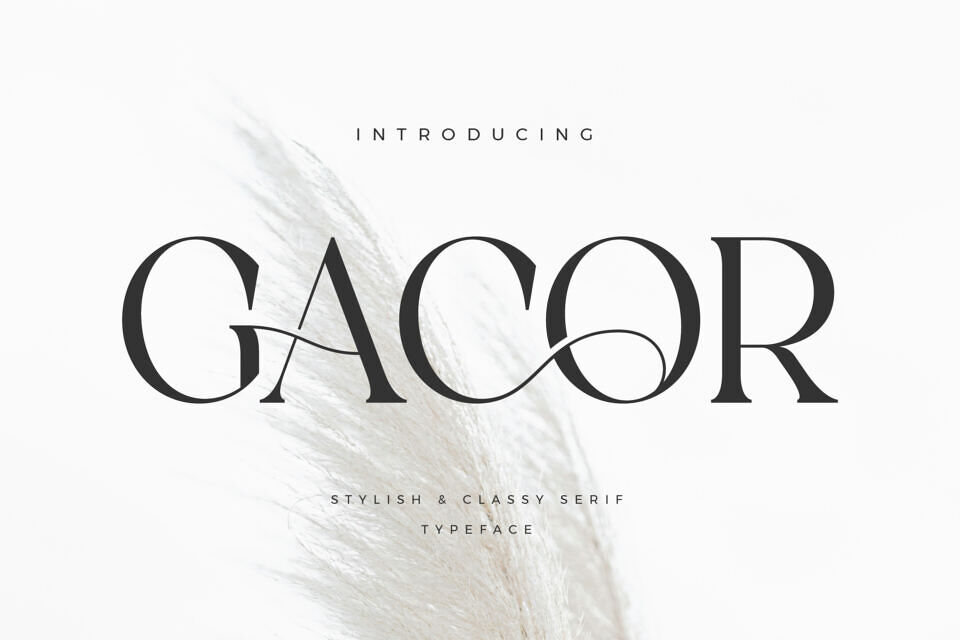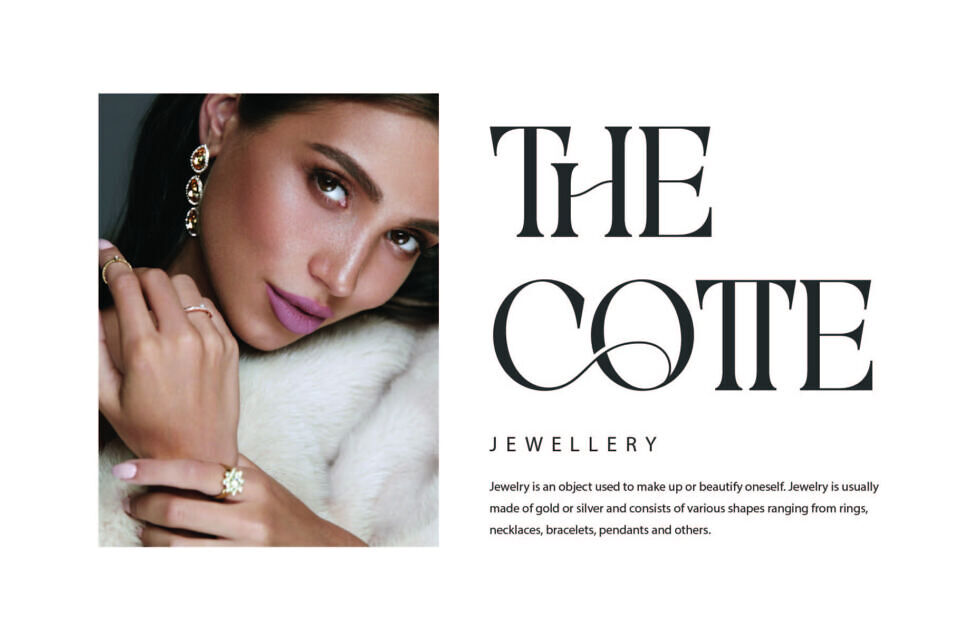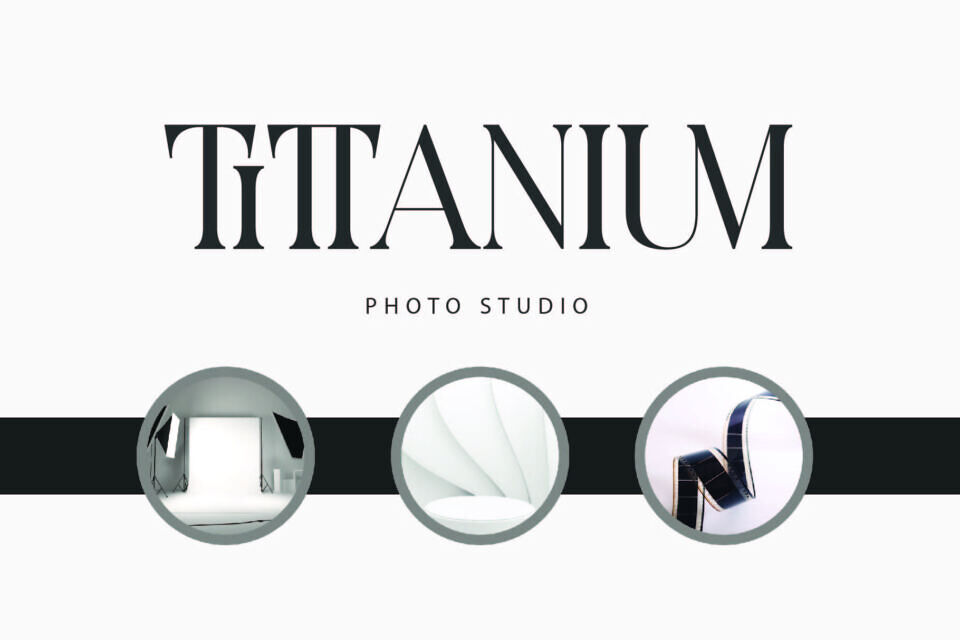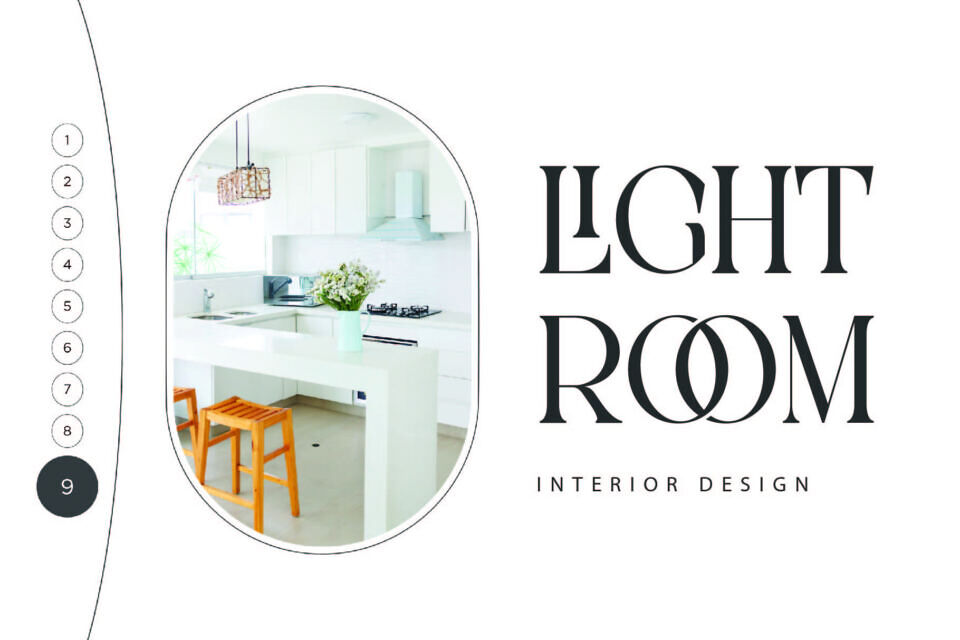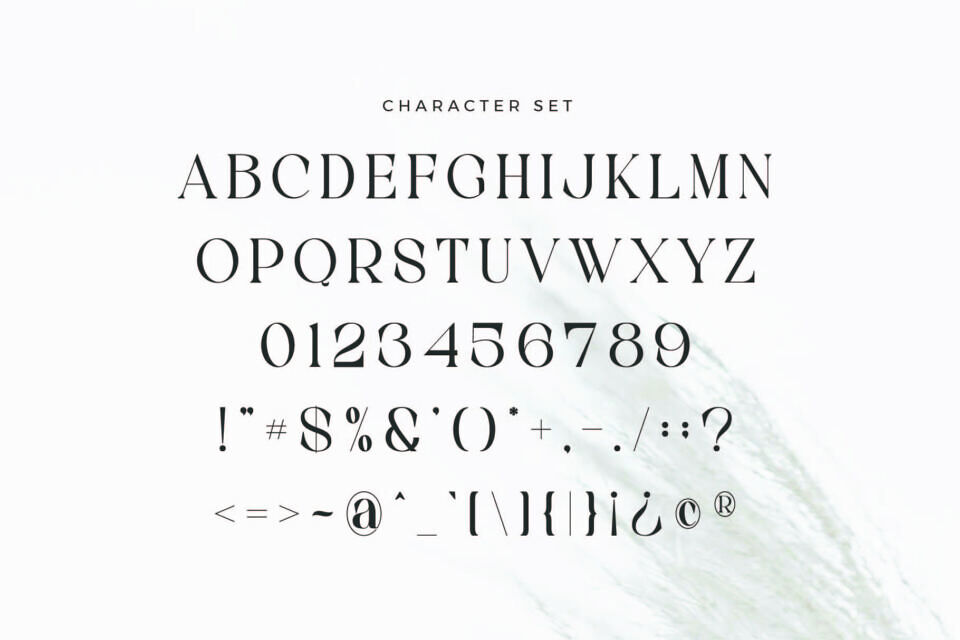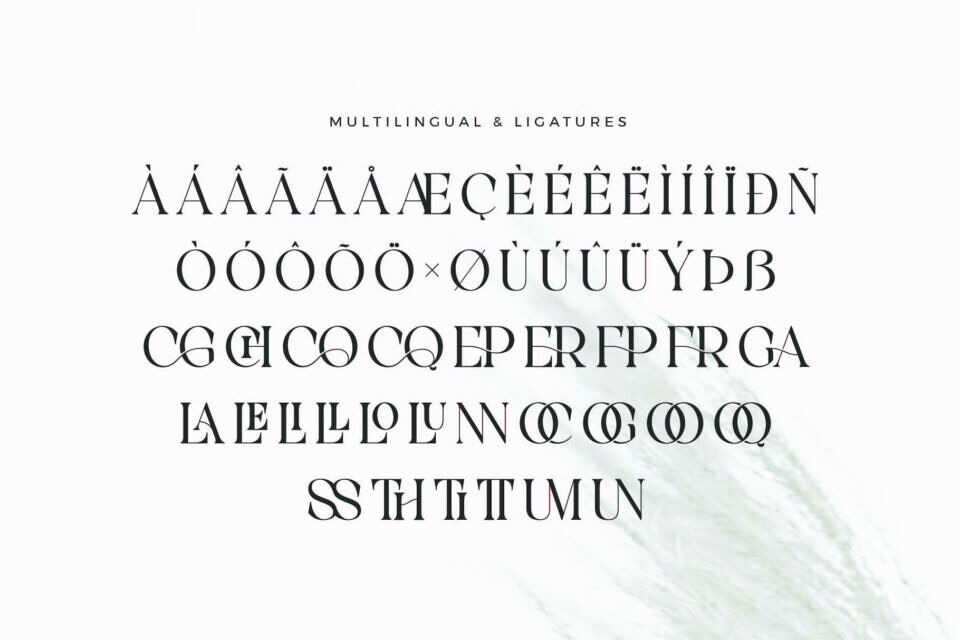
Gacor Font
Gacor is an elegant ligature-based font inspired by minimalist design. It’s ideal for creating visually appealing templates, brochures, videos, and advertisements, as well as logos and branding materials.